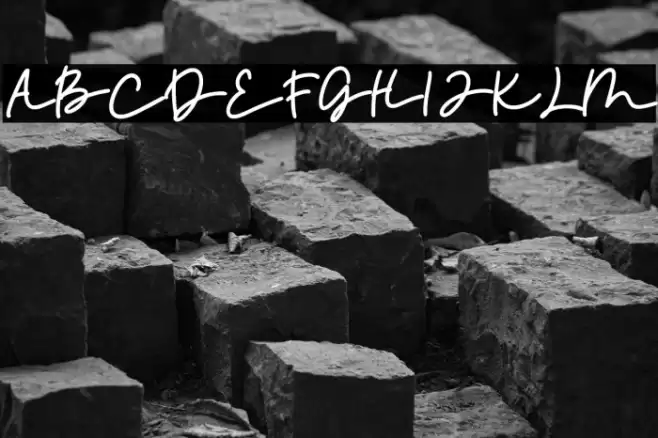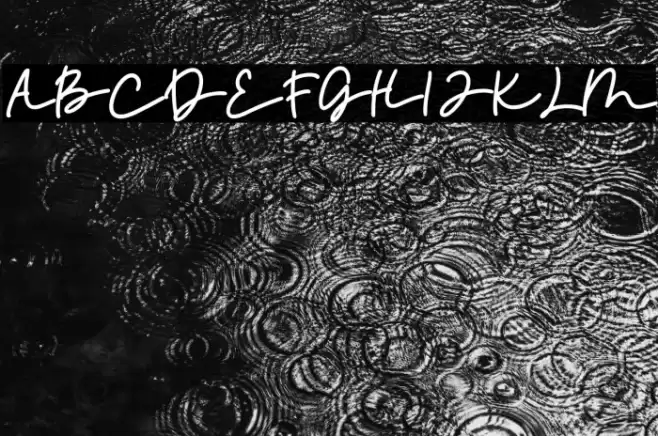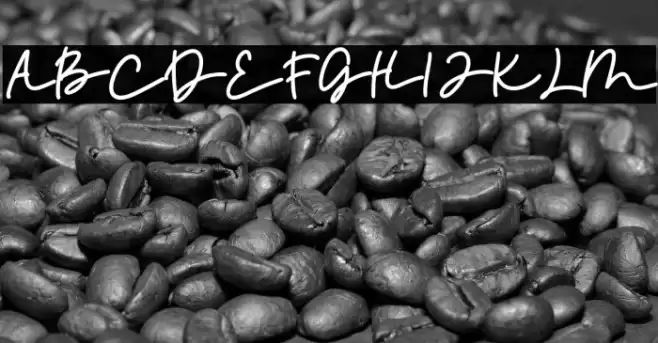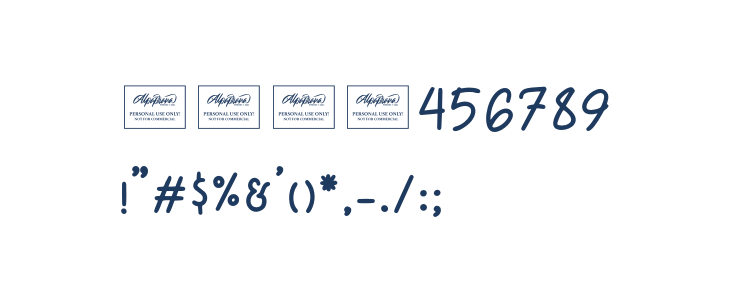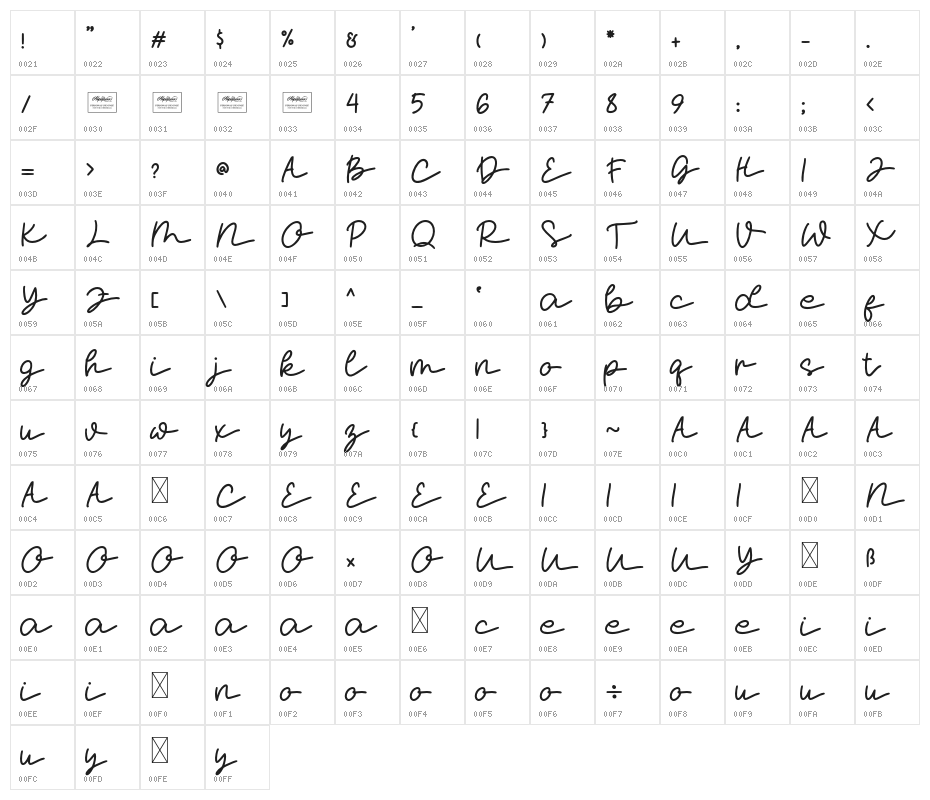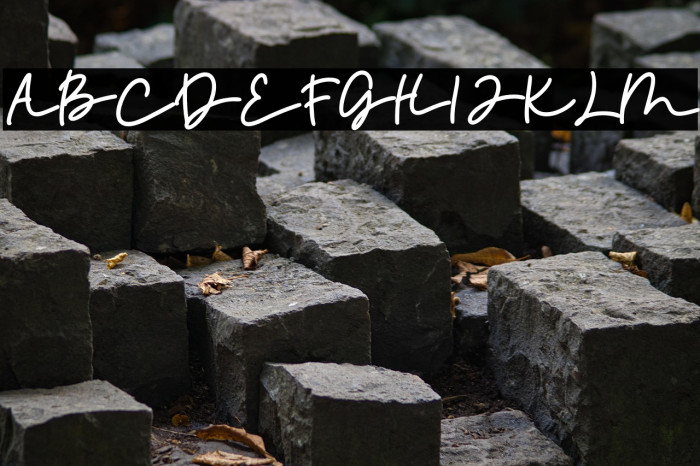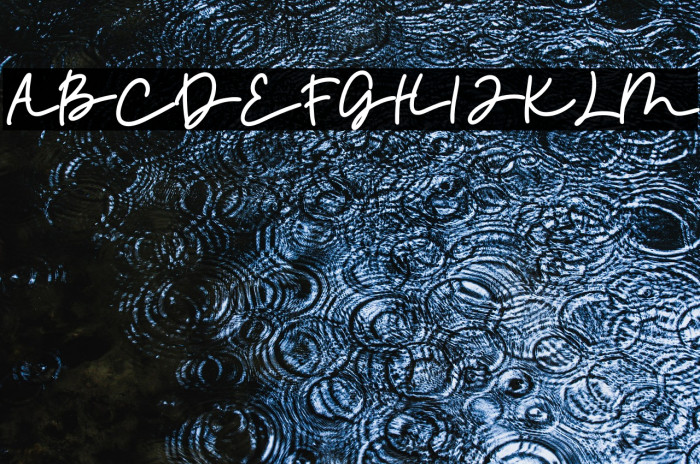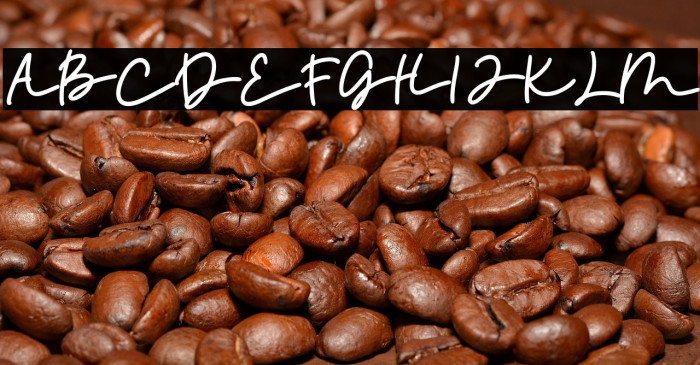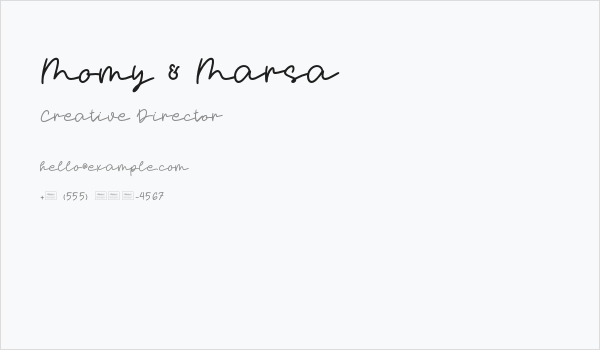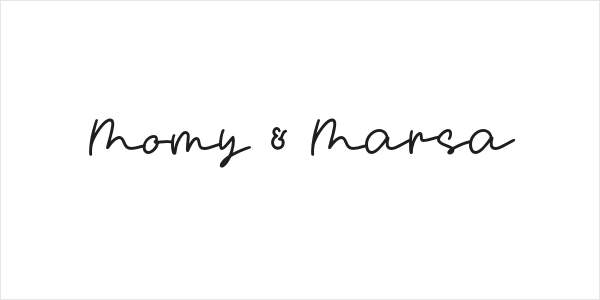
Momy & Marsa Font
Momy & Marsa Description
This font features a handwritten, cursive style with smooth, flowing lines that give it an elegant and personal touch. The uppercase letters are slightly larger and more pronounced, while the lowercase letters maintain a consistent flow, enhancing readability. The numbers and special characters are designed to match the script style, providing a cohesive look across all characters. The font's strokes are consistent in thickness, offering a balanced appearance without high contrast. Its overall design is modern yet retains a classic handwritten charm, making it versatile for various creative projects.
A modern, handwritten cursive font with smooth, flowing lines from Uncategorized fonts.
- Font: Momy & Marsa
- Proposed Projects: Ideal for wedding invitations, greeting cards, personal branding, and social media graphics.
- Use Case: Logos, Headlines, Invitations
Momy & Marsa UPPERCASE
Momy & Marsa LOWERCASE
Momy & Marsa OTHER CHARS